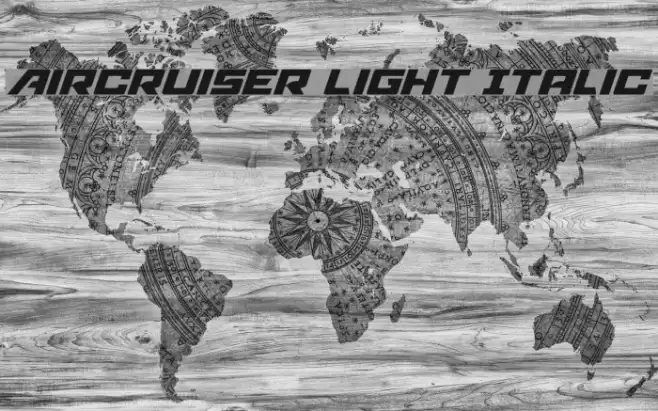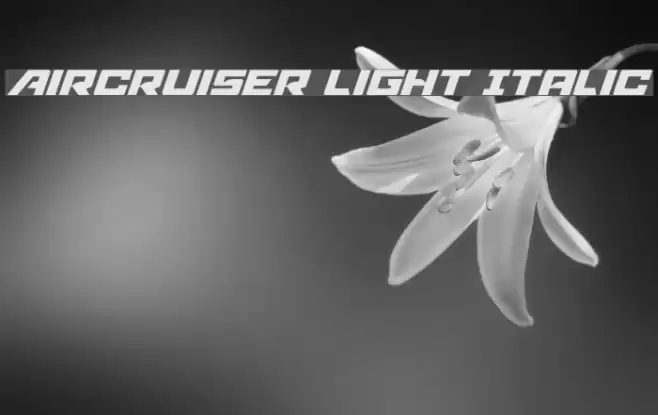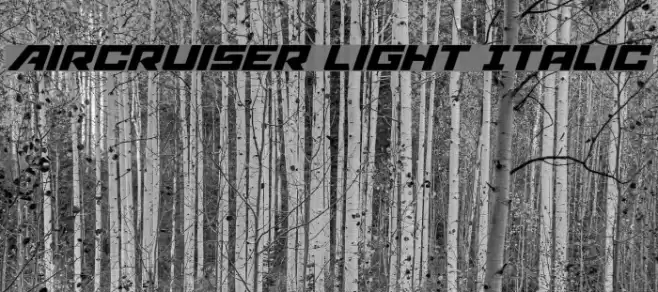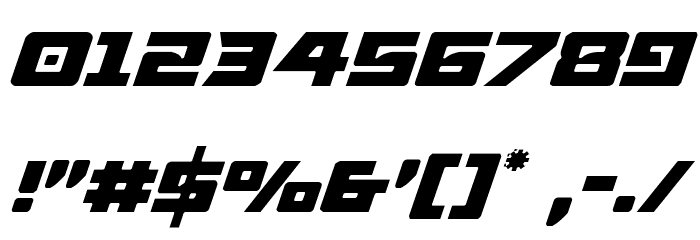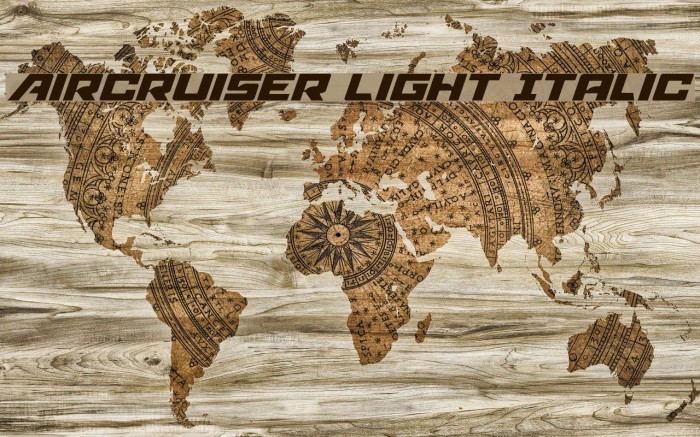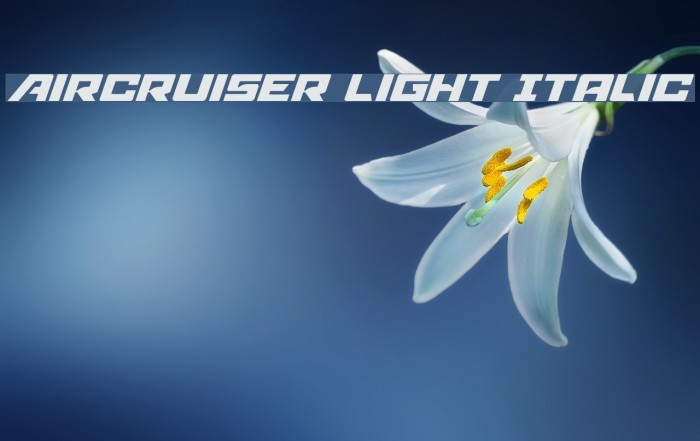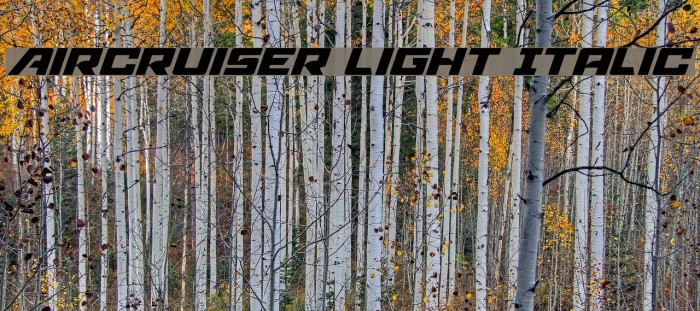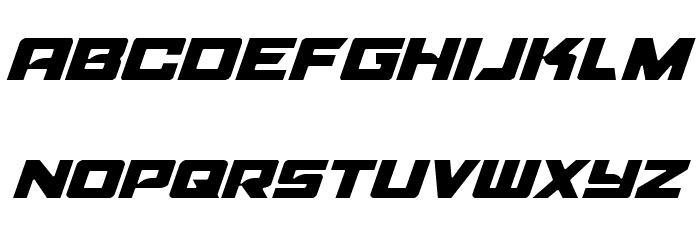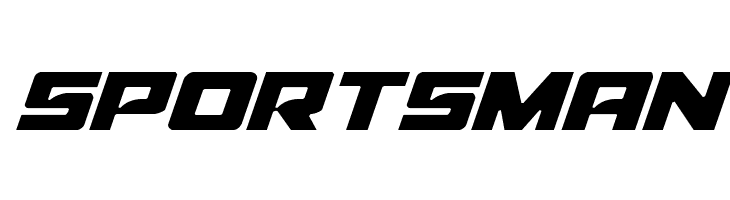
Aircruiser Light Italic Font
Aircruiser Light Italic Description
This font features a bold and dynamic design with a futuristic flair. The characters are italicized, giving them a sense of motion and speed. The angular and geometric shapes of the letters create a strong visual impact, making it ideal for attention-grabbing headlines or branding. The uppercase and lowercase letters maintain a consistent style, with sharp edges and a slightly condensed form. The numerals and special characters are designed to match the bold aesthetic, ensuring uniformity across all text elements. The overall appearance is modern and sleek, suitable for projects that require a contemporary and energetic look.
A bold, italicized font with a futuristic and dynamic design from Futuristic fonts.
- Proposed Projects: Ideal for use in technology branding, sports team logos, automotive advertisements, and sci-fi themed designs.